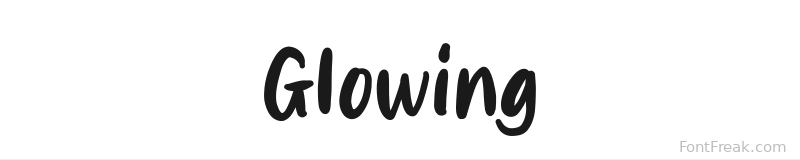
Glowing
About Glowing
Introducing the Glowing font by MJType, a captivating display typeface that brings a modern twist to typography. Released in 2023, this freeware font captures attention with its unique style, making it an excellent choice for various design projects. As a display font, Glowing stands out with its bold strokes and striking visual appeal, making it ideal for headlines and promotional materials.
The visual characteristics of the Glowing font are noteworthy. It features a smooth, rounded stroke with a medium weight that strikes an impressive balance between elegance and impact. The spacing is well-considered, allowing for easy readability while maintaining a dynamic presence. Its decorative elements, reminiscent of neon signage, create a sense of vibrancy that adds a contemporary flair to any design.
This font is particularly suited for use cases such as wedding invitations, where its unique style can evoke a sense of celebration, as well as movie posters that require eye-catching typography to draw viewers in. Additionally, it works wonderfully for restaurant menus, helping to create an inviting atmosphere, and for social media graphics that need to stand out in a crowded feed. The target audience for the Glowing font includes graphic designers seeking to enhance their projects, small business owners looking for a distinct brand identity, and content creators wanting to make their visuals pop.
What sets the Glowing font apart is its ability to infuse energy into any design. Its distinctive characteristics lend themselves to a variety of applications while maintaining a cohesive aesthetic. Whether you're looking for a way to make your project shine or simply want to explore a fresh typeface, the Glowing font free download provides an excellent opportunity to elevate your work. With its modern appeal and versatility, this font is sure to become a favorite in your design toolkit.